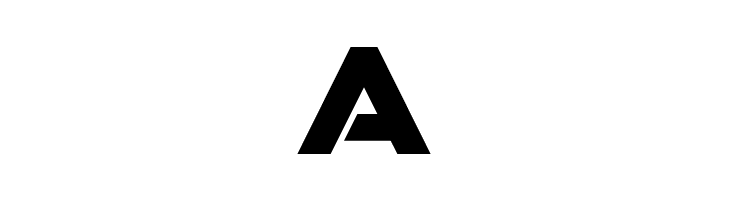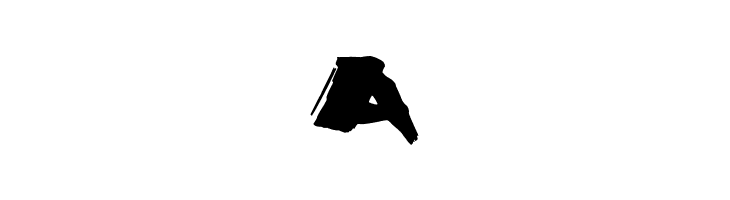
A bold, decorative font with a vintage, distressed texture.
A bold, playful font with a hand-drawn, informal style.
A playful, hand-drawn font with a casual and friendly appearance.
A bold, textured font with a vintage, hand-drawn appearance.
A bold, textured font with a 1990s grunge aesthetic.
A bold, dynamic script font with expressive, flowing letterforms.
A playful, handwritten font with fluid, connected strokes.
A bold, playful font with rounded, dynamic characters.
An ornate and decorative font with elegant swirls and flourishes.
A bold, brush-style font with dynamic and artistic strokes.
An aggressive, edgy font with sharp, jagged edges and a chaotic, rebellious style.
A jagged, thorn-like font with an aggressive and rebellious style.
A bold, blackletter font with sharp, angular lines and a Gothic aesthetic.
A bold, blackletter-style font with sharp, angular lines and a gothic feel.
A bold, hand-drawn font with an expressive, graffiti-like style.
A dynamic, hand-drawn style font with bold, irregular strokes.
A bold, hand-drawn font with textured strokes and dynamic forms.
A bold, modern sans-serif font with geometric lines and a slightly condensed style.
A modern, oblique font with a sleek and dynamic style.
A bold, distressed font with a grunge, hand-drawn style.
A bold, grungy font with a distressed texture, ideal for edgy designs.
A bold, distressed font with a grungy, textured appearance.
A modern, geometric font with elongated, angular characters and a sleek design.
A bold, modern font with geometric and organic elements, perfect for impactful designs.
A bold, modern font with a geometric and condensed style.
A bold, dynamic script font with a strong, flowing style.
A casual handwritten font with smooth curves and consistent strokes.
A playful, casual handwritten font with smooth, flowing lines.